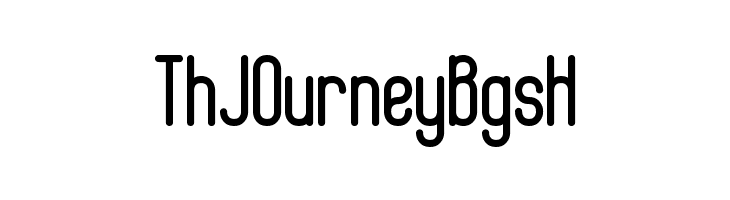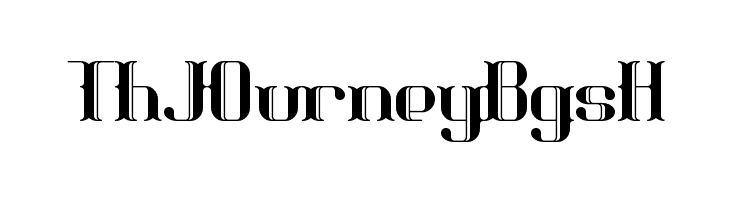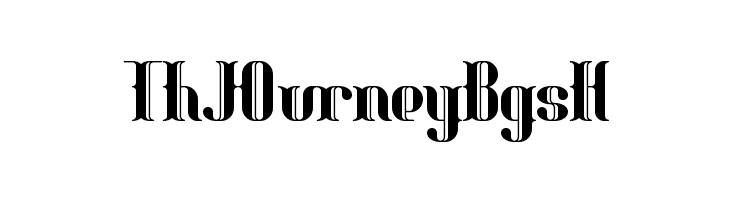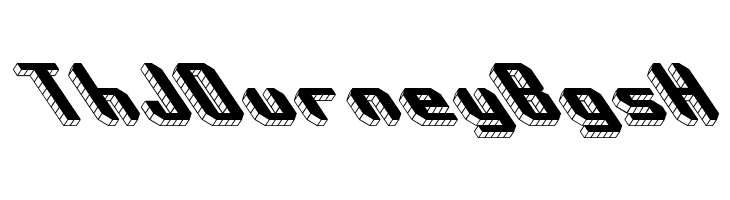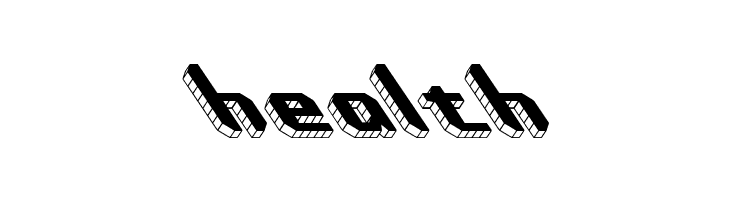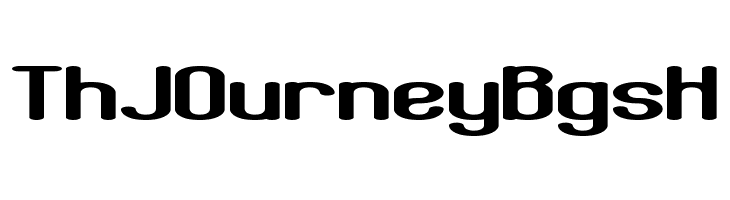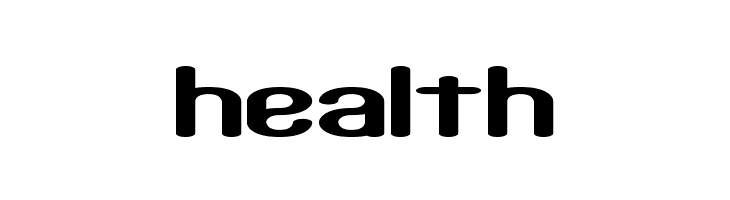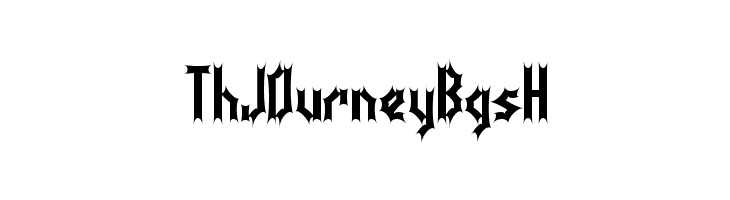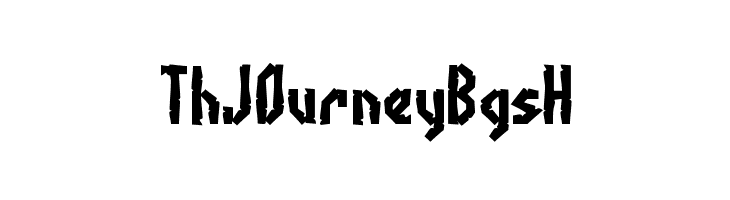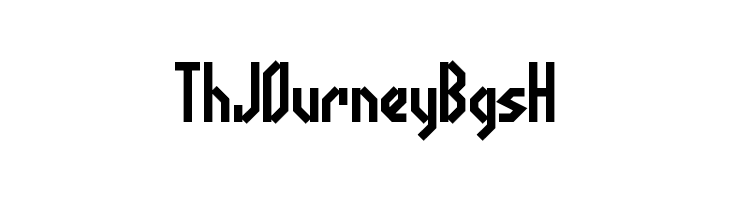
A bold, modern font with rounded edges and a strong industrial feel.
A bold, gothic-inspired font with intricate detailing and a medieval flair.
A bold, slanted font with sharp, angular edges and consistent thickness.
A modern-vintage font with thin strokes and decorative serifs.
A thin, slanted font with a modern and dynamic style.
A bold, geometric font with a futuristic, digital aesthetic.
A bold, rounded, and modern font with a playful and approachable style.
A bold, segmented font with a futuristic and digital aesthetic.
A geometric, diamond-enclosed font with bold, angular lines.
A bold, decorative font with thorn-like embellishments and a gothic style.
A bold, playful font with outlined characters and a unique, eye-catching style.
A bold, angular font with a futuristic, geometric style.
A bold, angular font with a geometric and futuristic style.
A bold, geometric font with sharp angles and a futuristic look.
A rugged, distressed font with a chaotic, hand-drawn style.
A playful, hand-drawn font with bold outlines and a whimsical style.
A playful, hand-drawn font with bold, rounded strokes and an informal style.